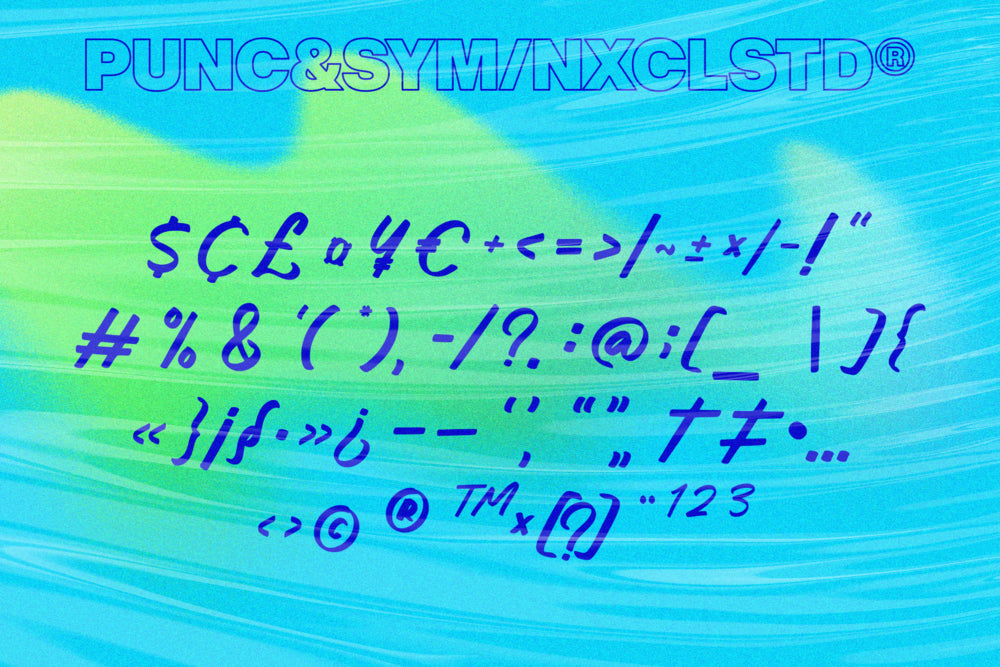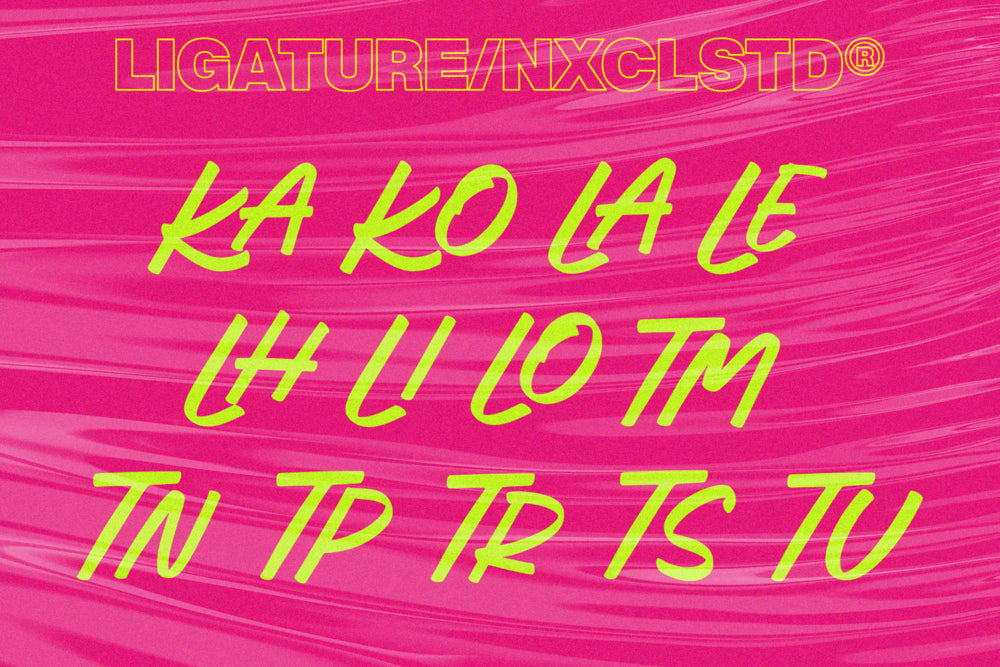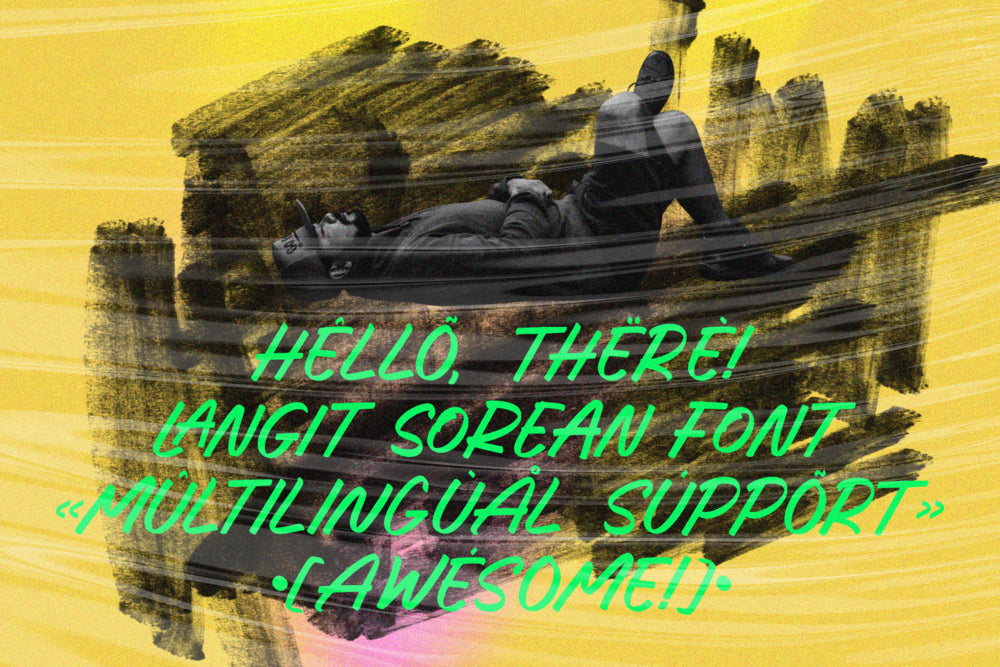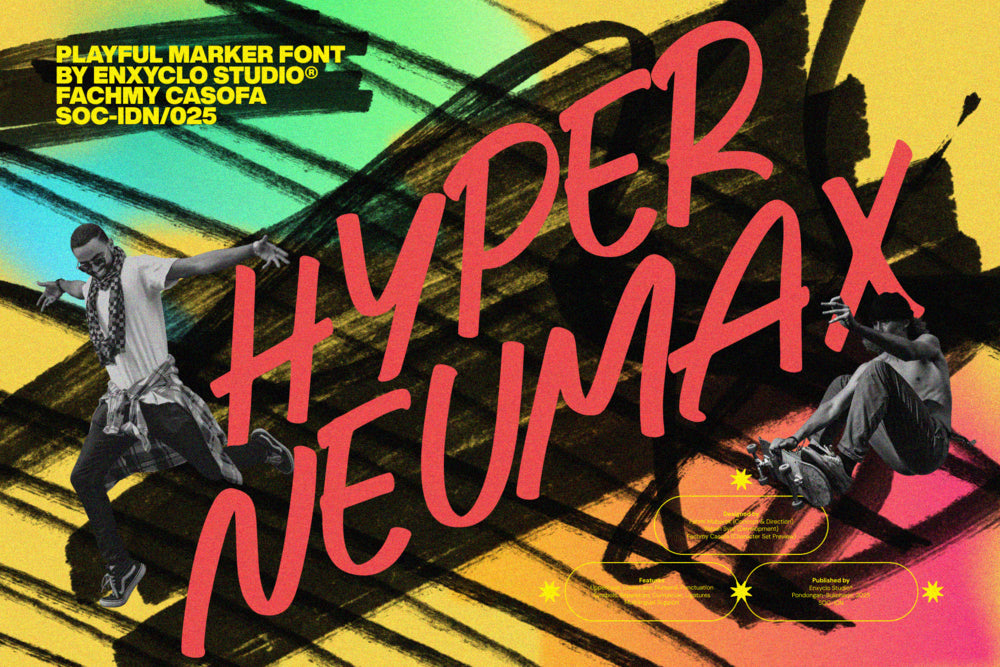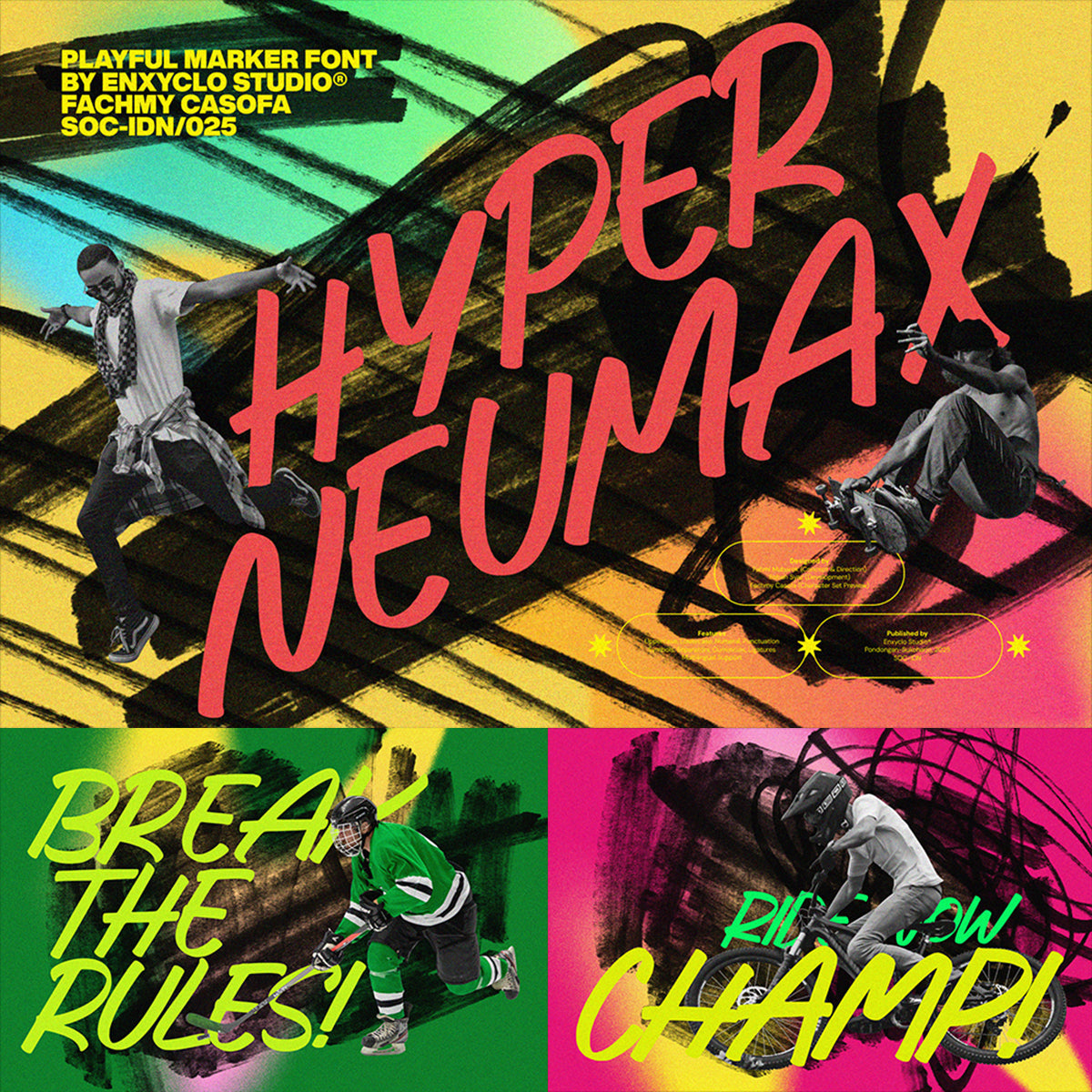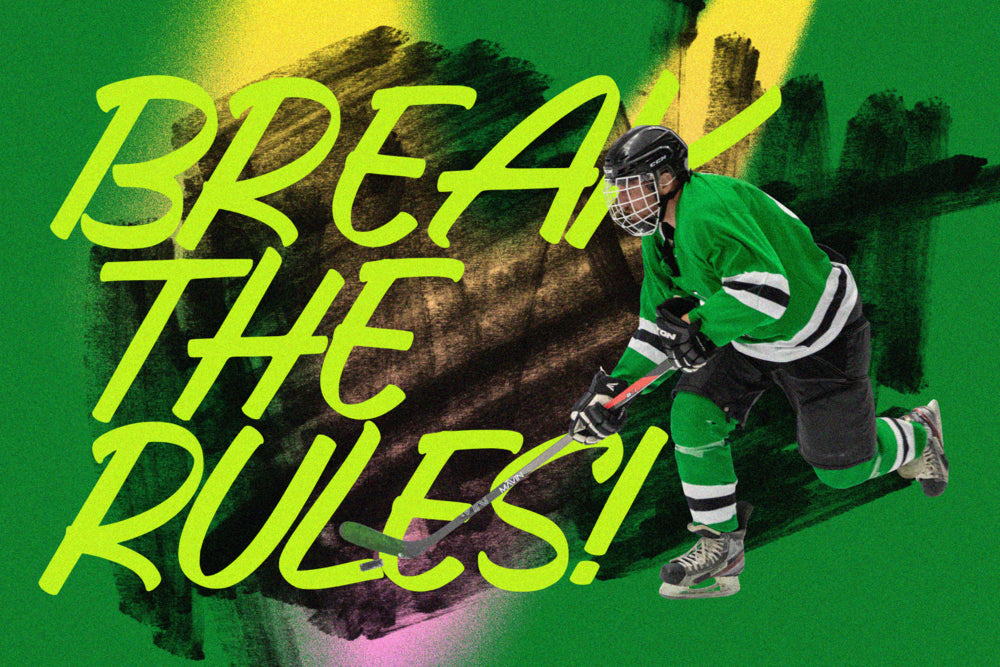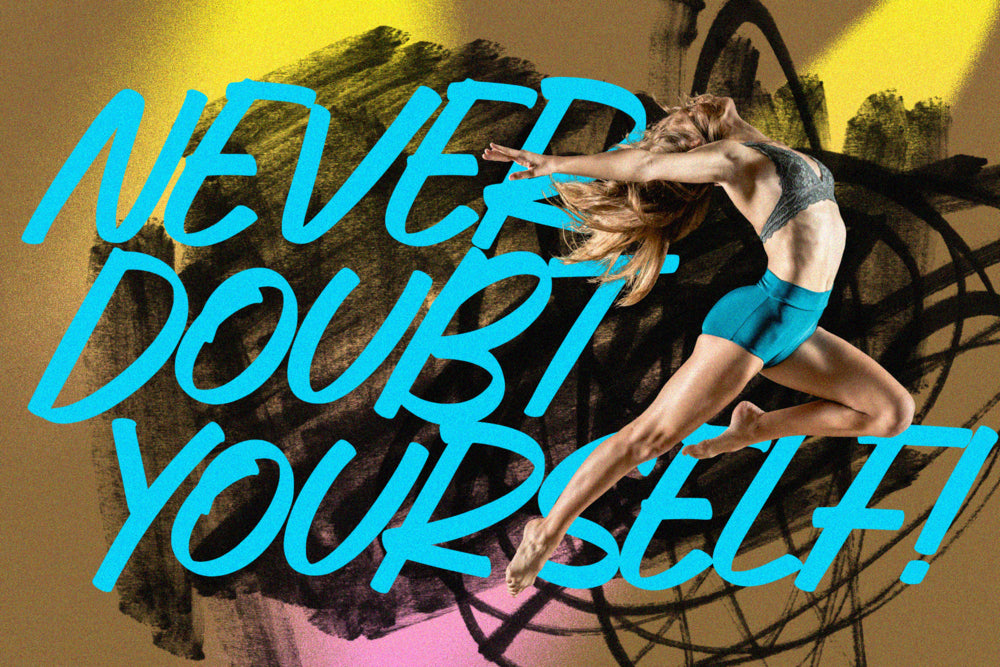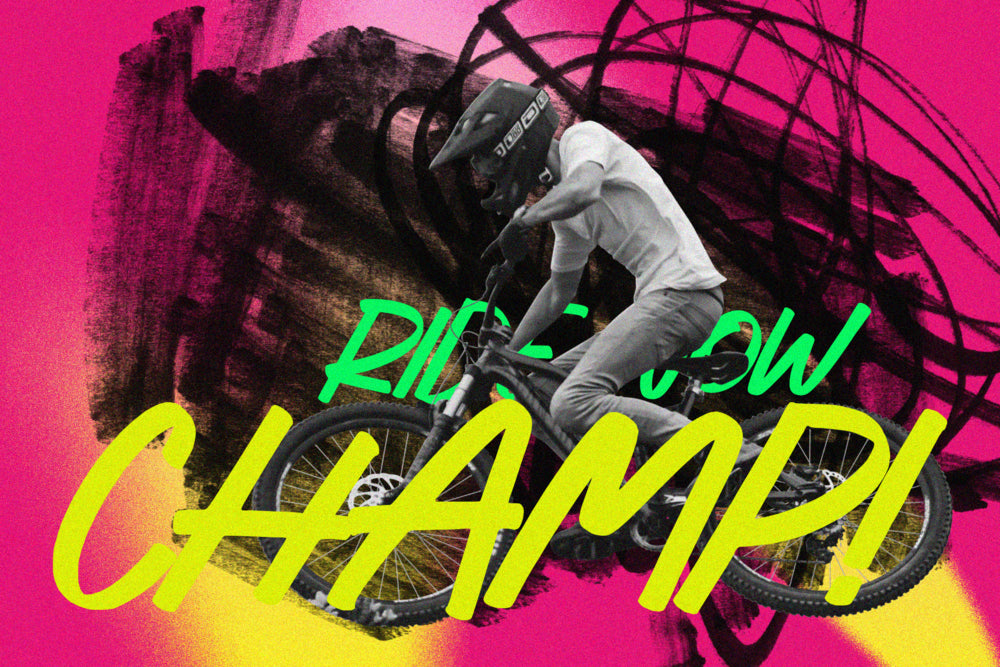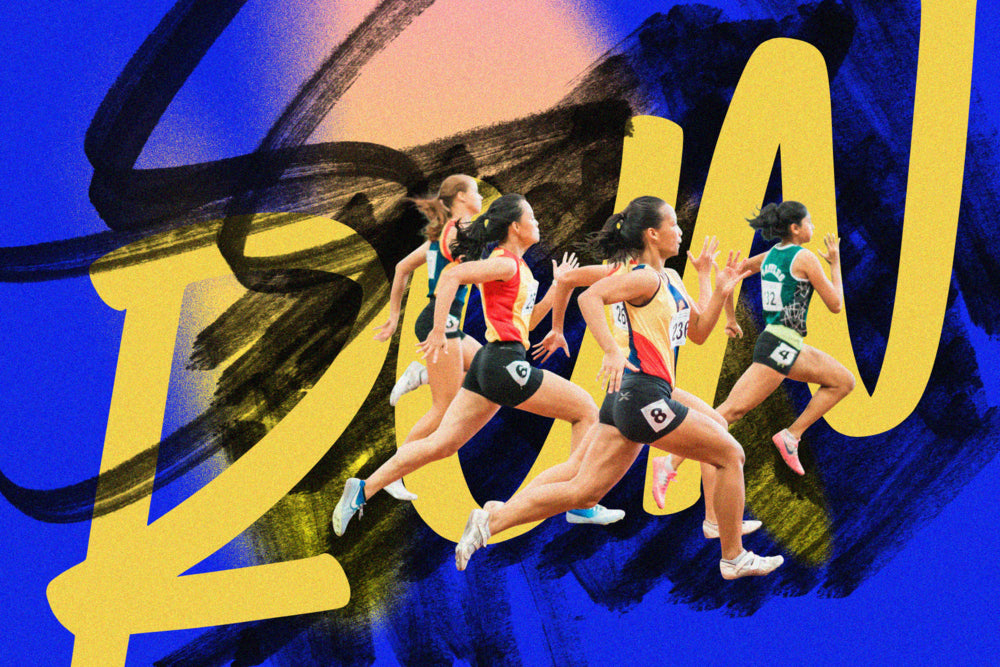
Hyper Neumax — Bold Marker Font
Hyper Neumax is a bold, hand-drawn marker font designed to reflect urban creativity, featuring energetic strokes and a vibrant handmade aesthetic. It includes OTF, TTF, and WOFF formats, with support for uppercase, lowercase, numerals, symbols, punctuation, currencies, ligatures, and multilingual characters.